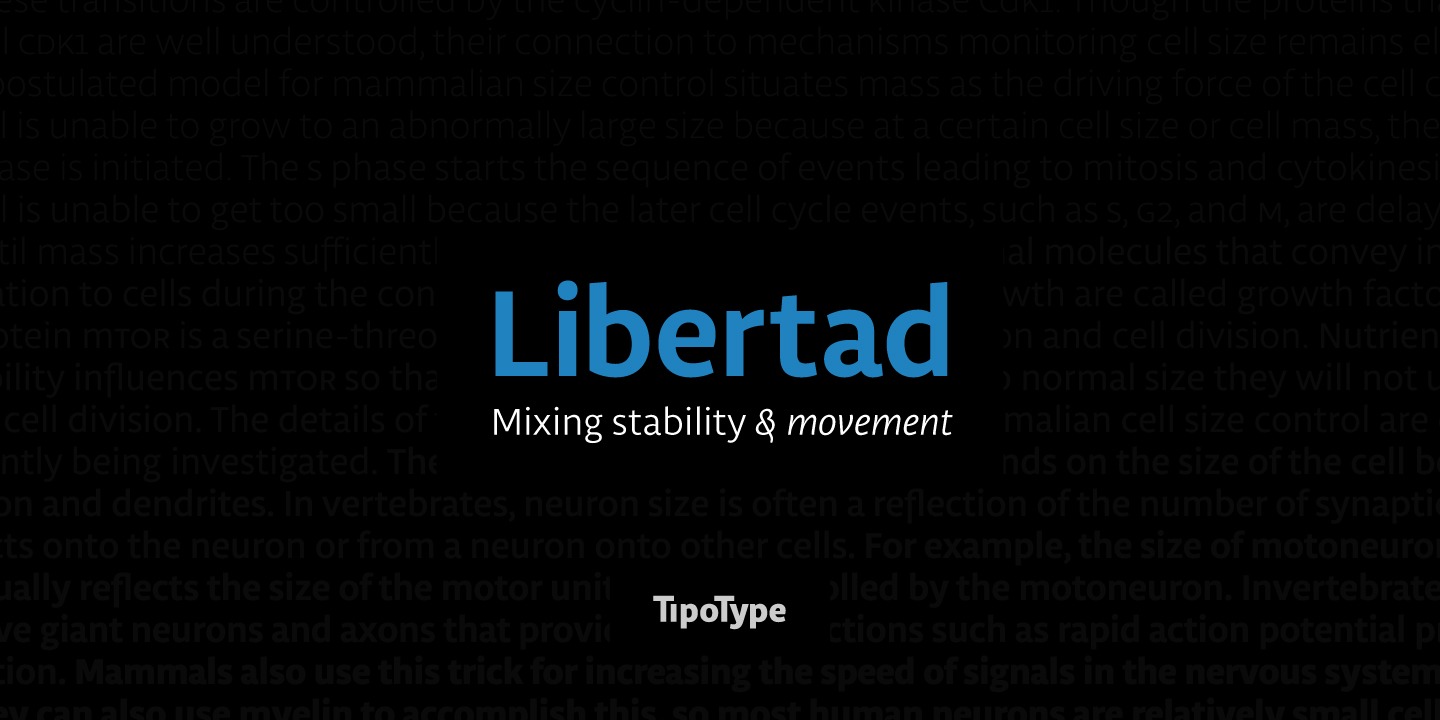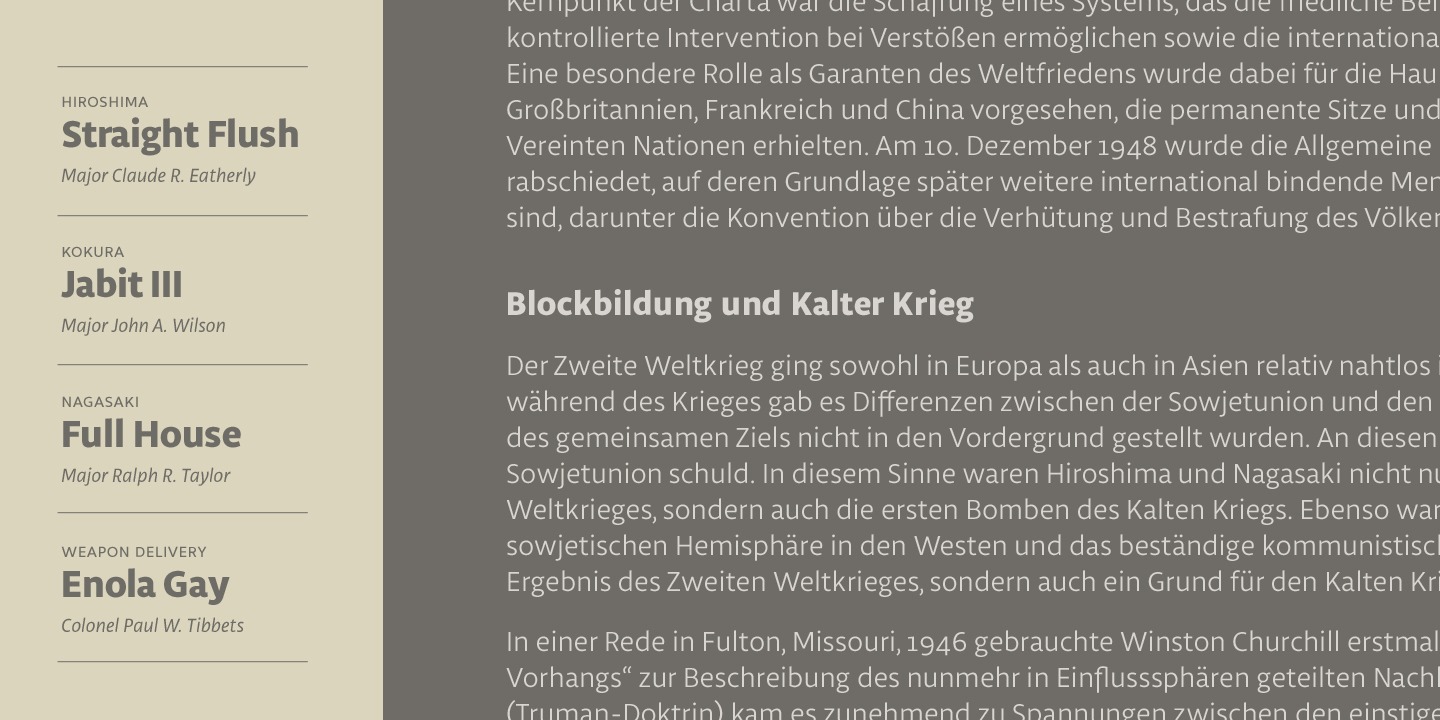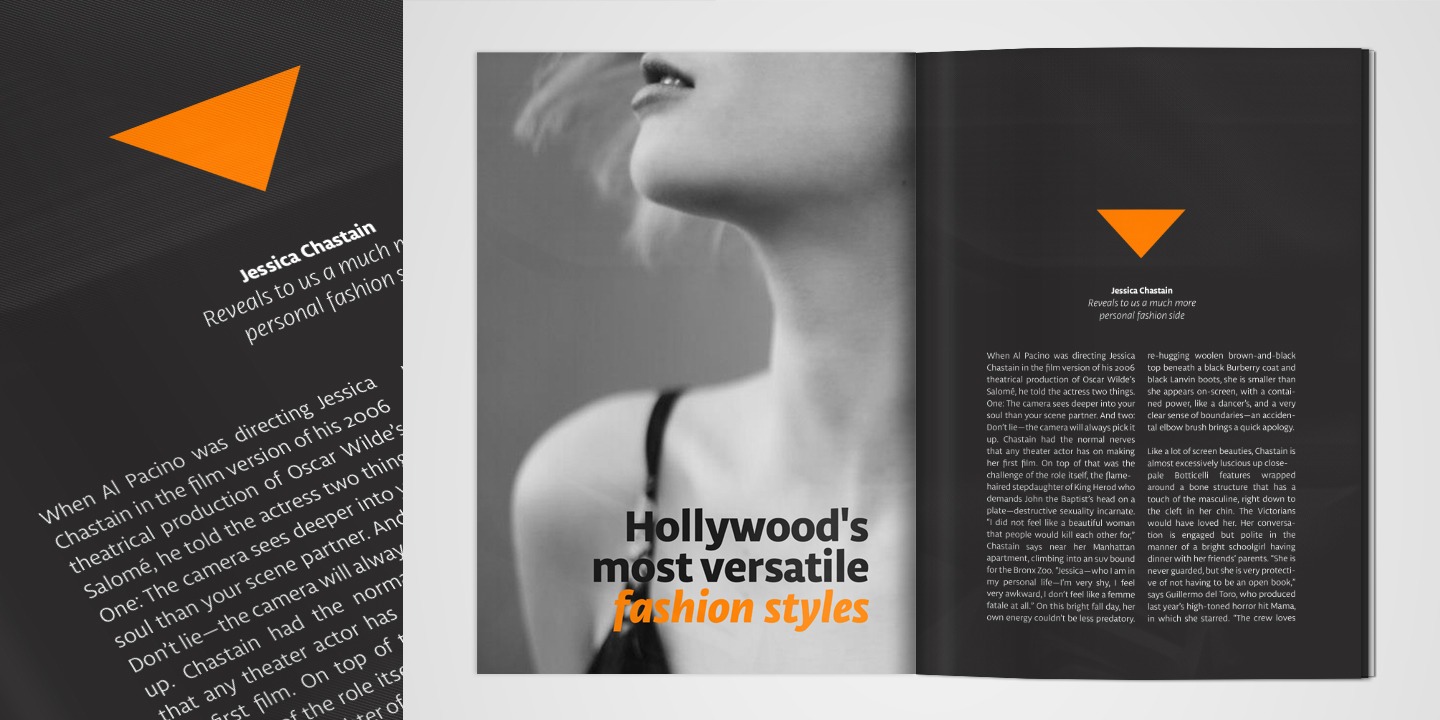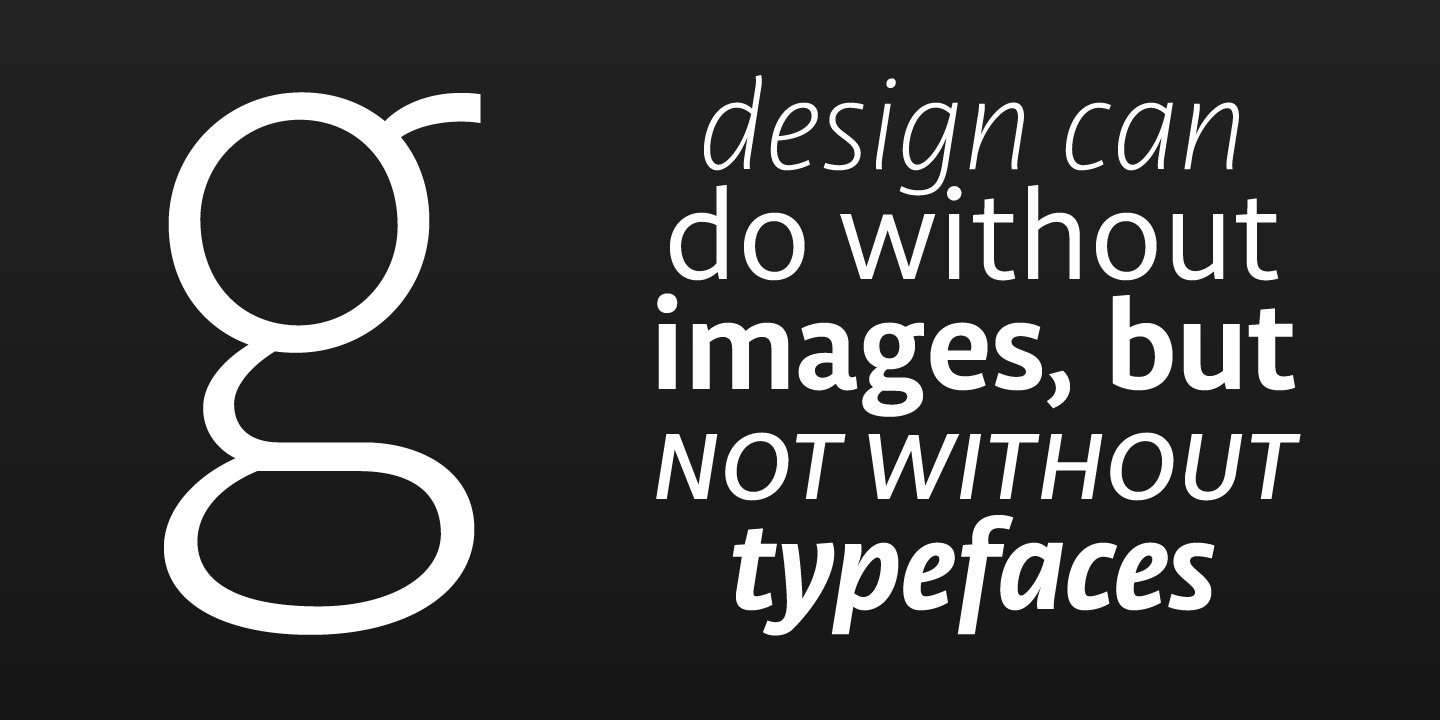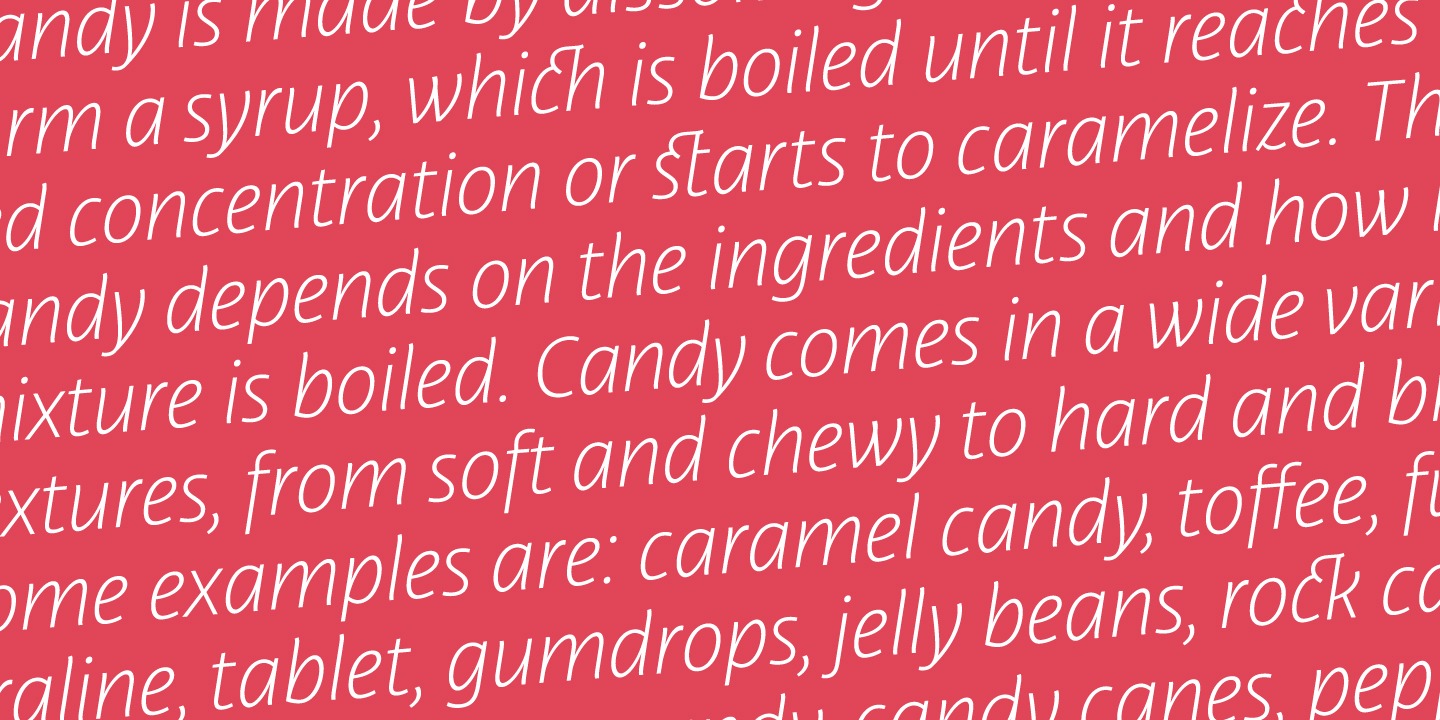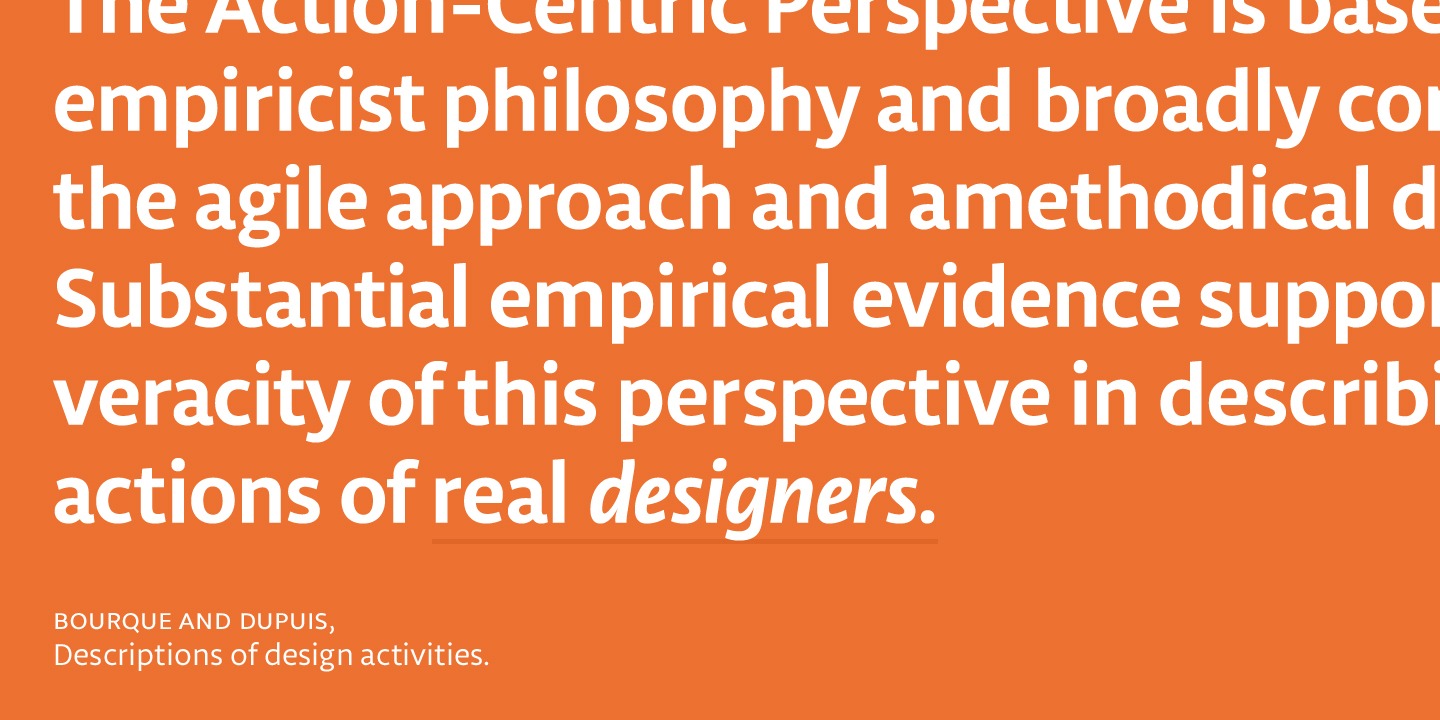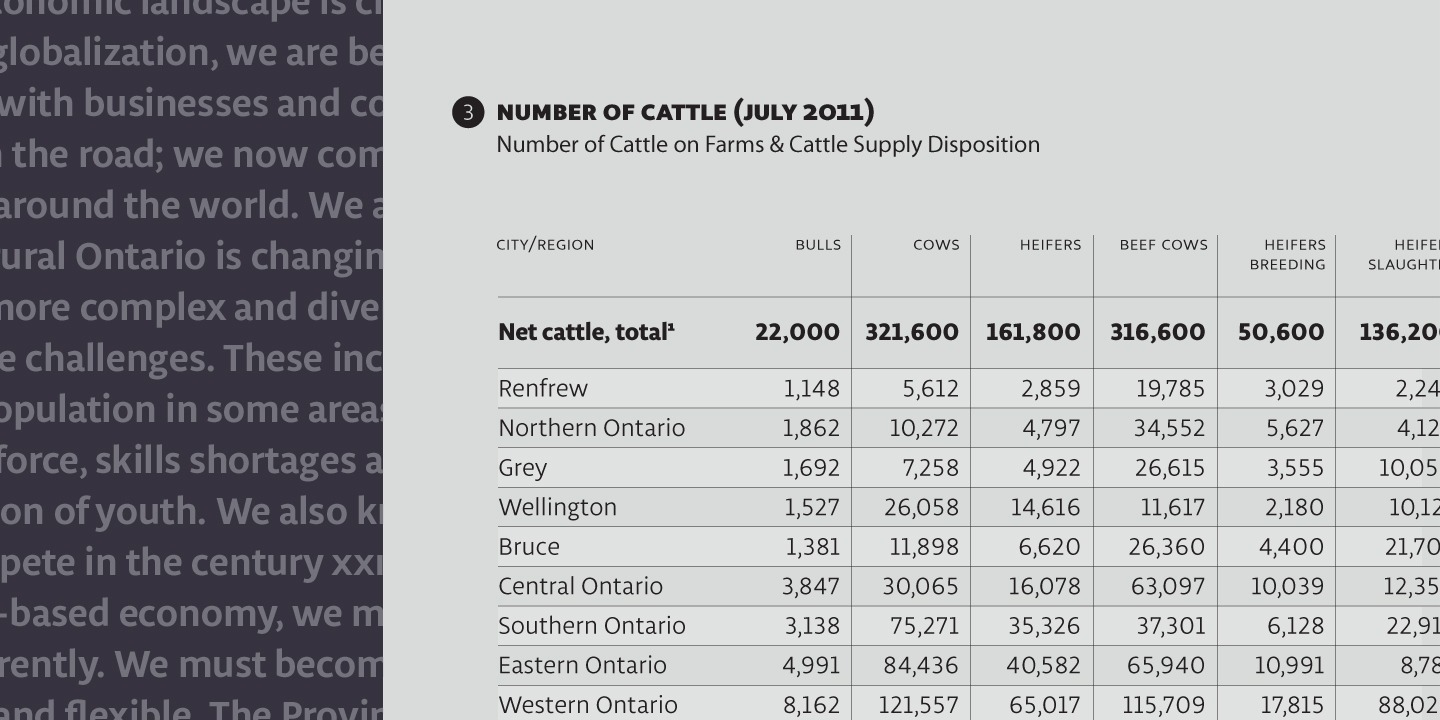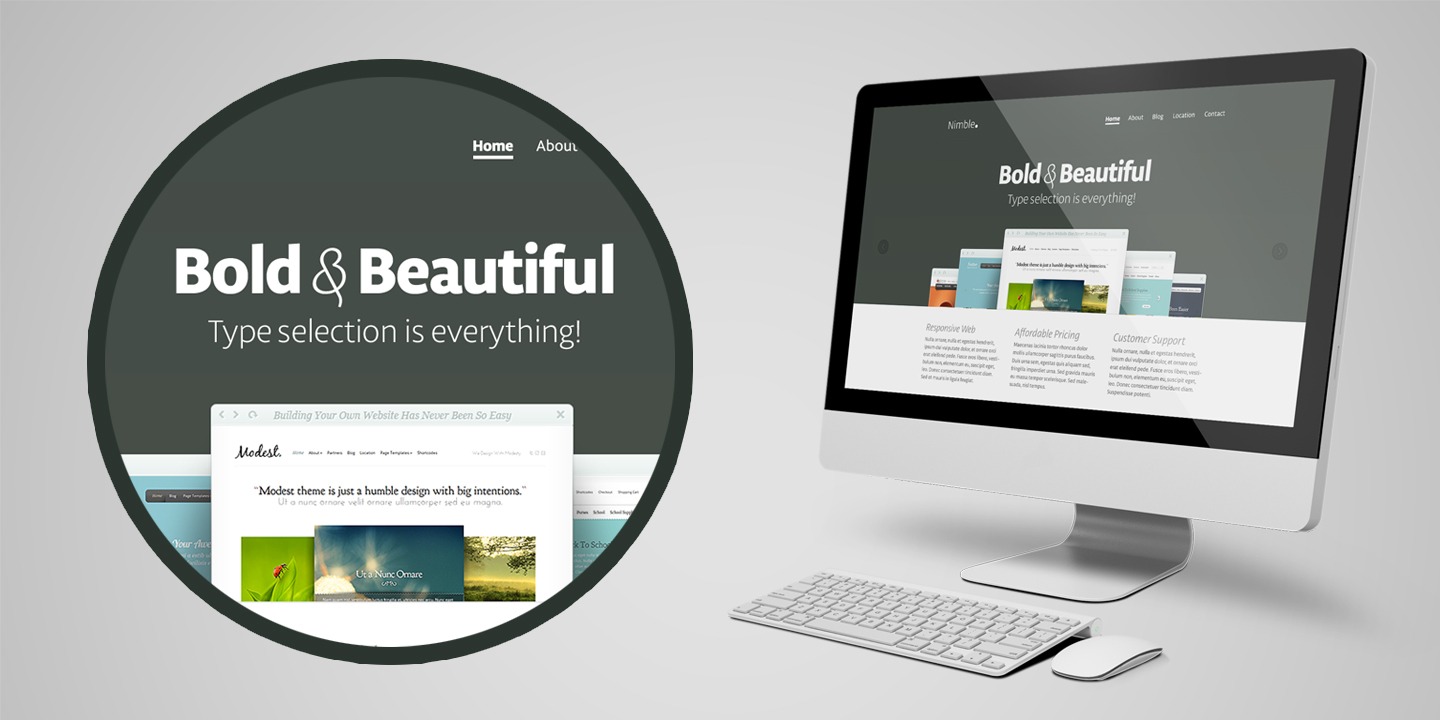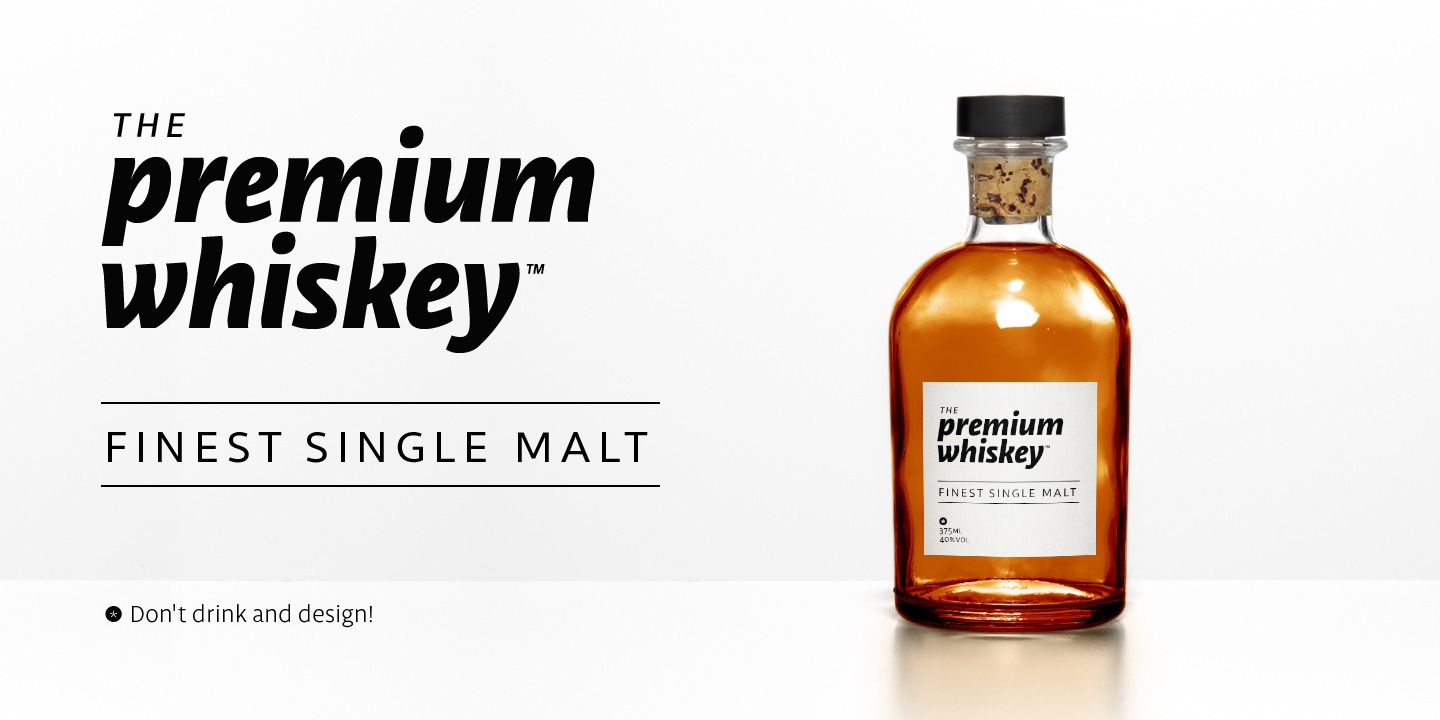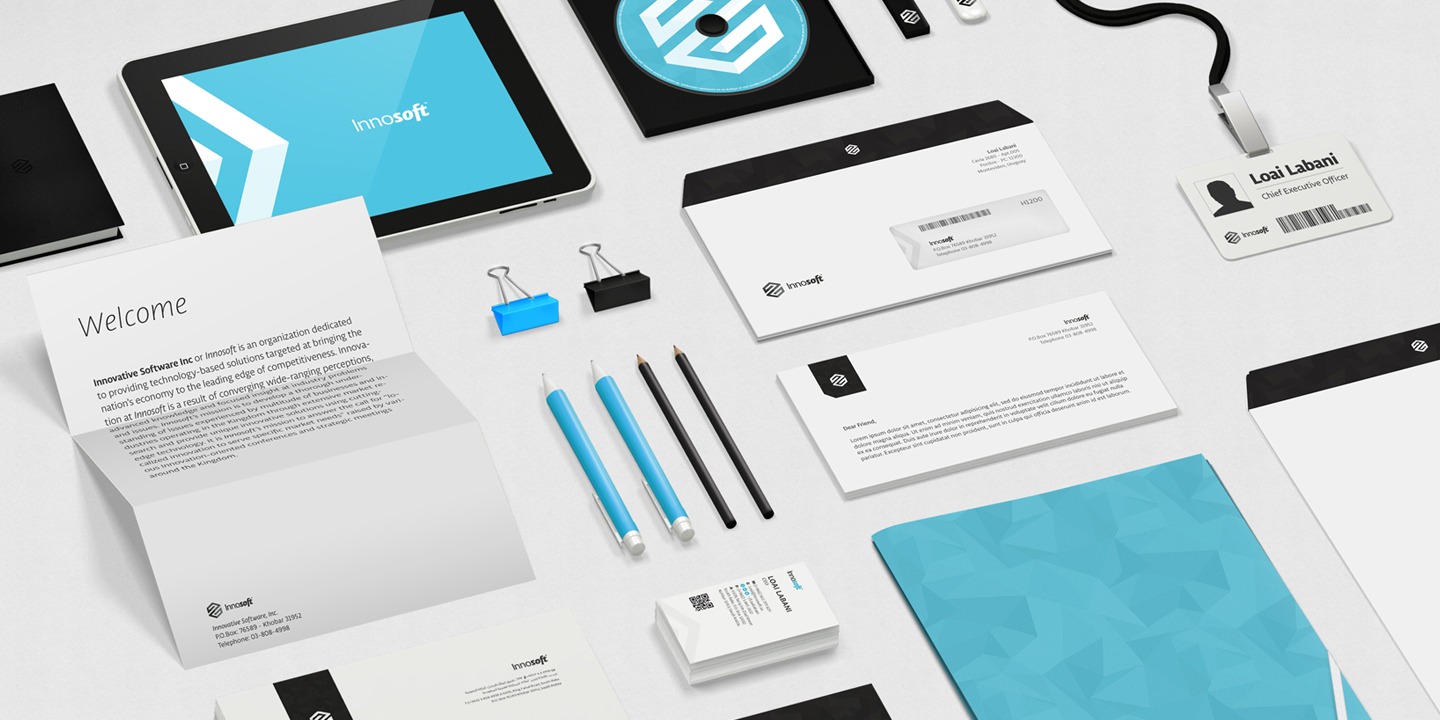
Libertad
Design can do without images, but not without typefaces.
Libertad is a sans-serif typeface that mixes humanist and grotesk models. Its most interesting feature is the combination of balanced regulars with dynamic italics, which makes it a very versatile font for different uses.
This typeface follows the Luc(as) de Groot’s Interpolation Theory, that’s why it has seven specially-calculated weights plus their matching italics, from thin to extra-bold. This allows it to be useful in big headlines and also small texts. It has more than 800 characters per weight and support for more than 70 languages.